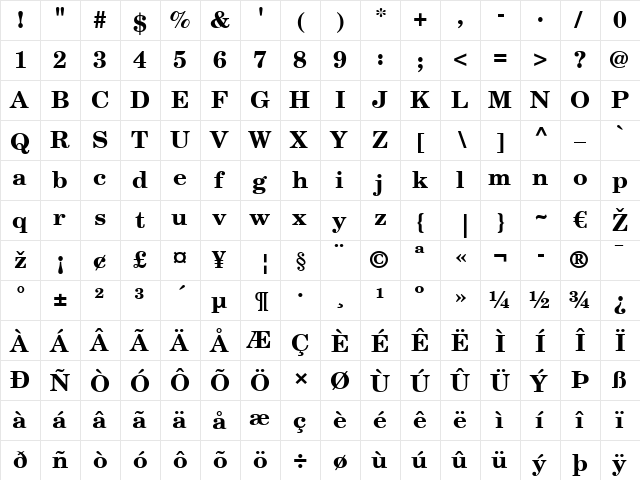
NewCenturySchlbk LT Bold
Design Context for NewCenturySchlbk LT Typeface
NewCenturySchlbk LT takes a measured approach to typography — its balanced proportions and neutral character make it a reliable workhorse for both digital and print work. Its bold stroke weight gives it real presence on the page.